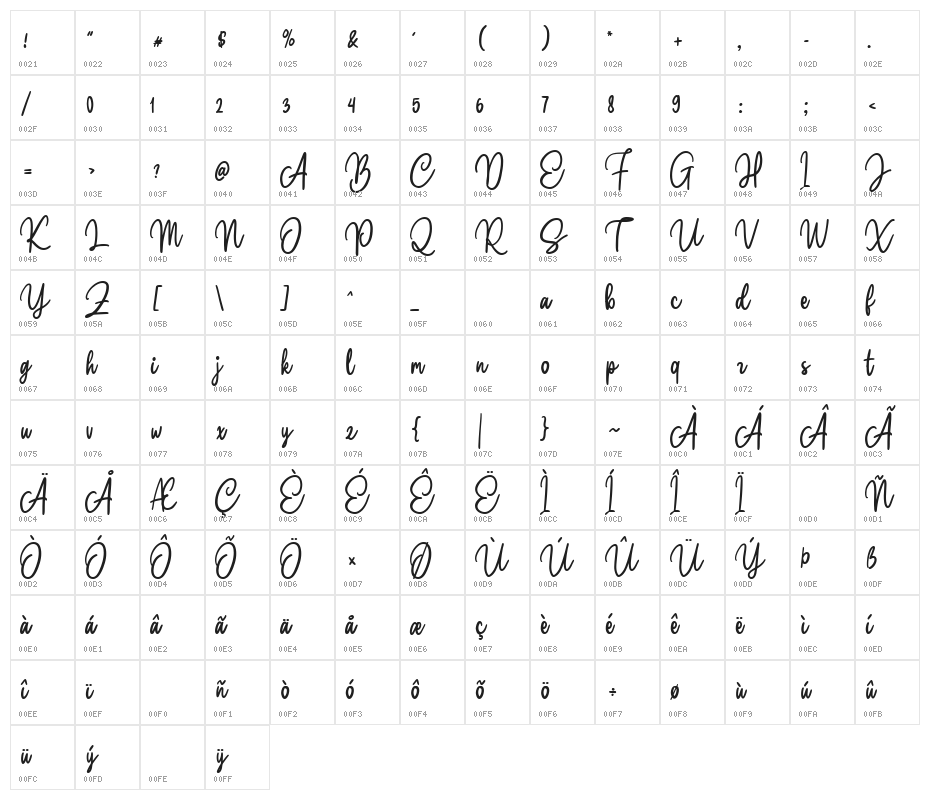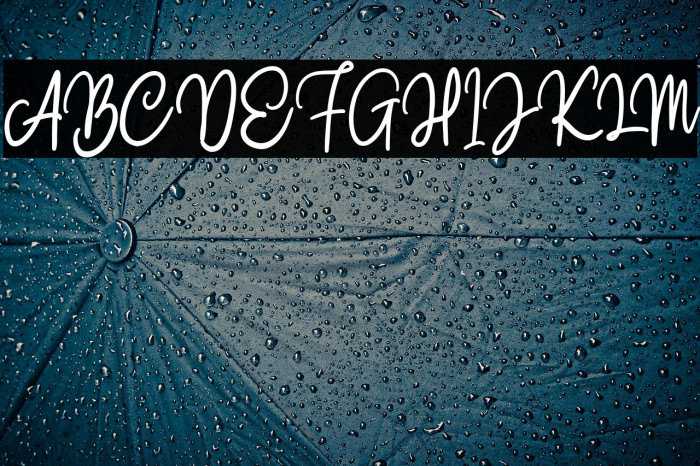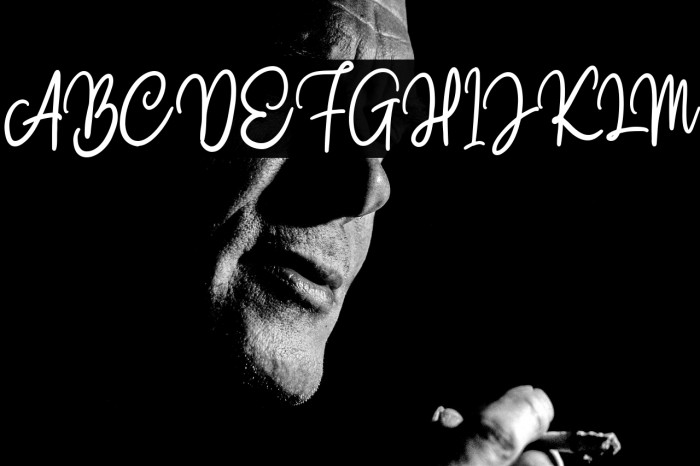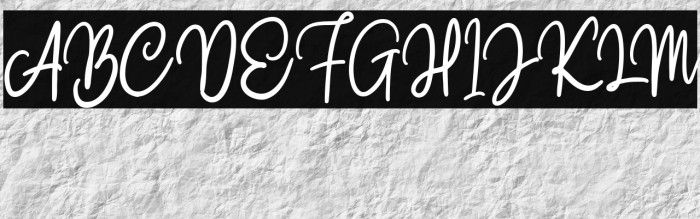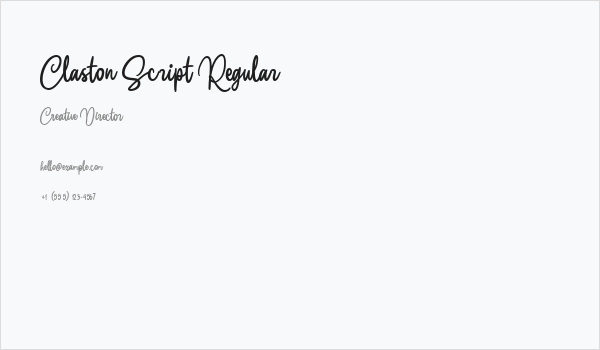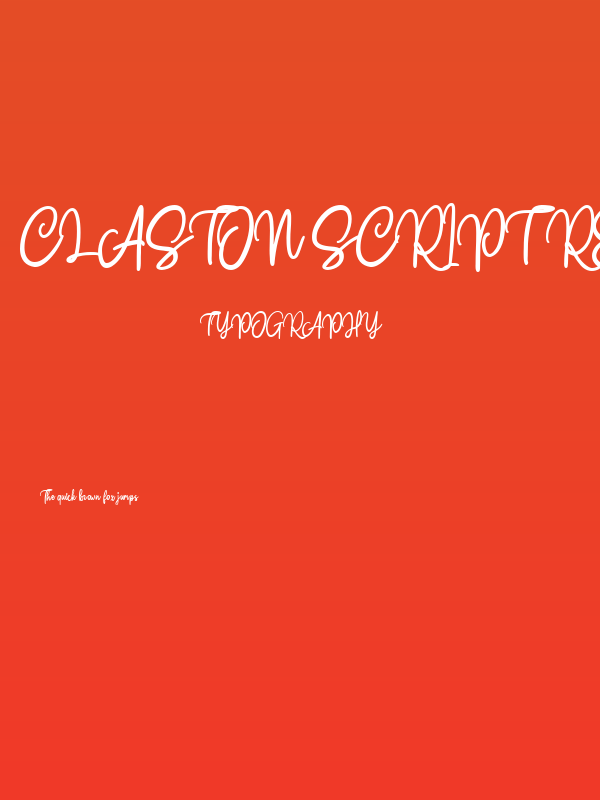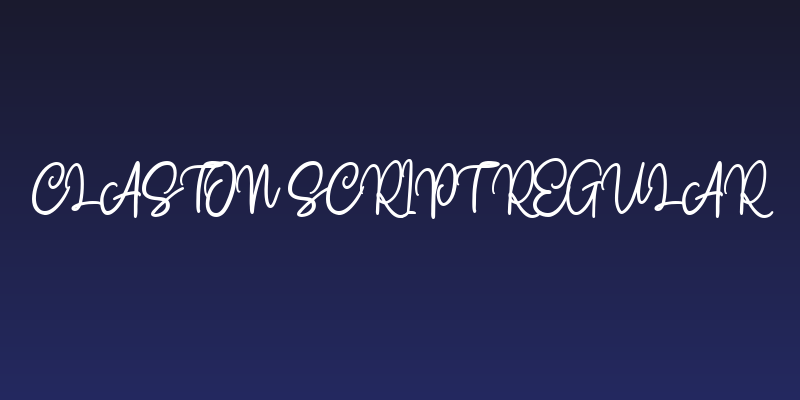
Claston Script Regular Font
Claston Script Regular Description
This font features a flowing, cursive style that exudes elegance and sophistication. The uppercase letters are tall and graceful, with smooth curves and a consistent stroke width that gives them a refined appearance. The lowercase letters maintain the same fluidity, with some characters featuring loops and swirls that add a touch of whimsy. The numerals are clear and easy to read, matching the overall aesthetic of the font. Special characters are designed with the same attention to detail, ensuring a cohesive look across all glyphs. This font is perfect for projects that require a personal, handwritten touch while maintaining a professional appearance.
| Overall Style | Elegant, Handwritten |
| Use Case | Logos, Invitations, Greeting Cards |
| Proposed Projects | Ideal for wedding invitations, greeting cards, branding, and elegant packaging. |